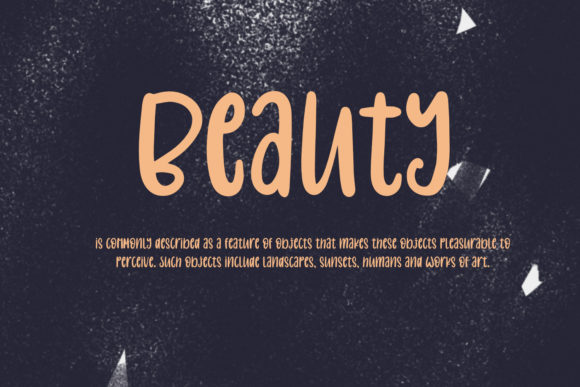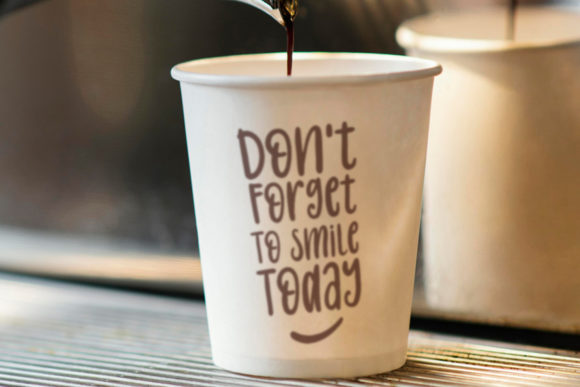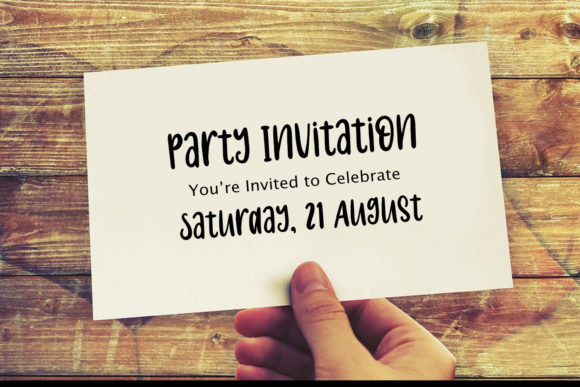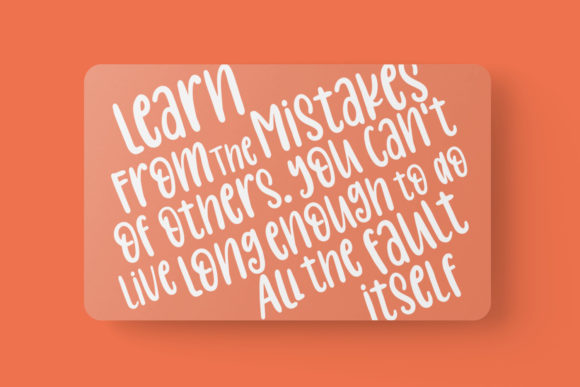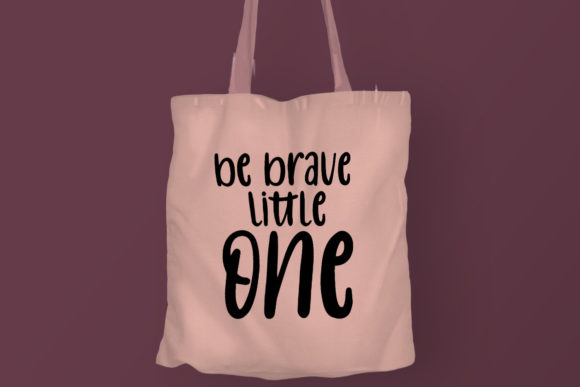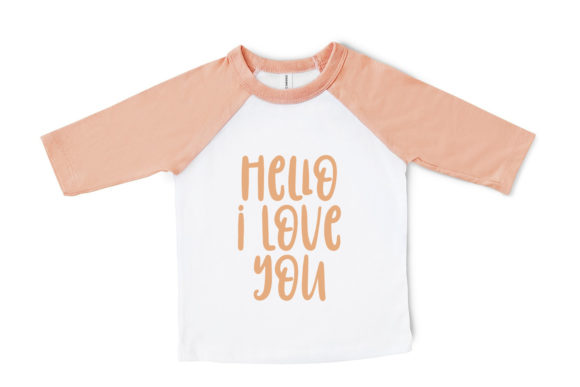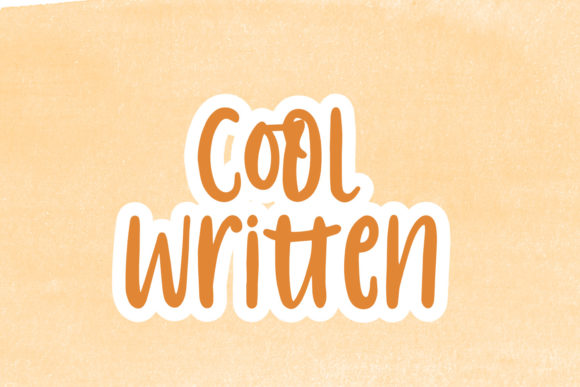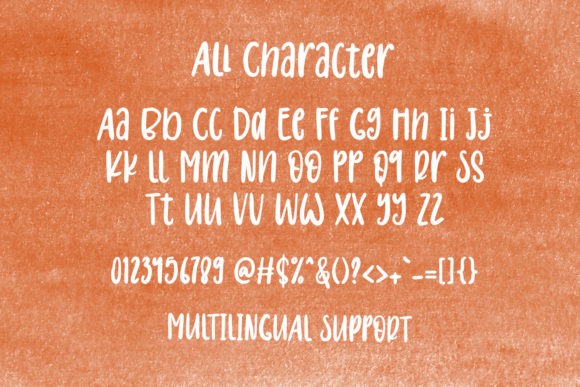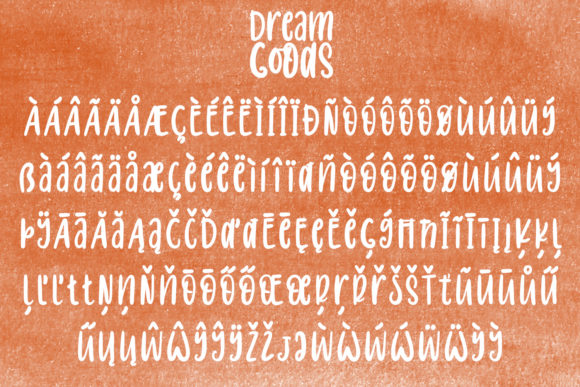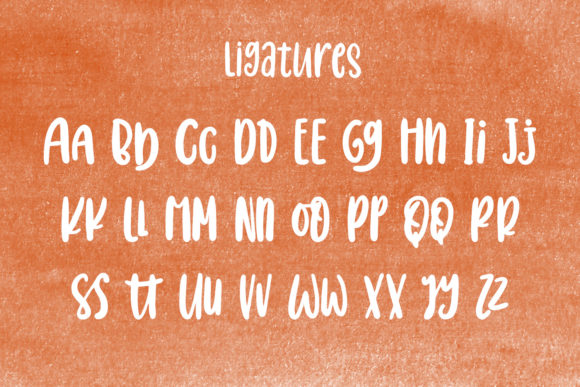
Dream Good Font
Dream Good is a simple, adaptable and informal handwritten font. This font is PUA encoded which means you can access all of the glyphs and swashes with ease!
Whether you’re using it for crafting, digital designing, presentations or greeting cards making, it’s perfect!